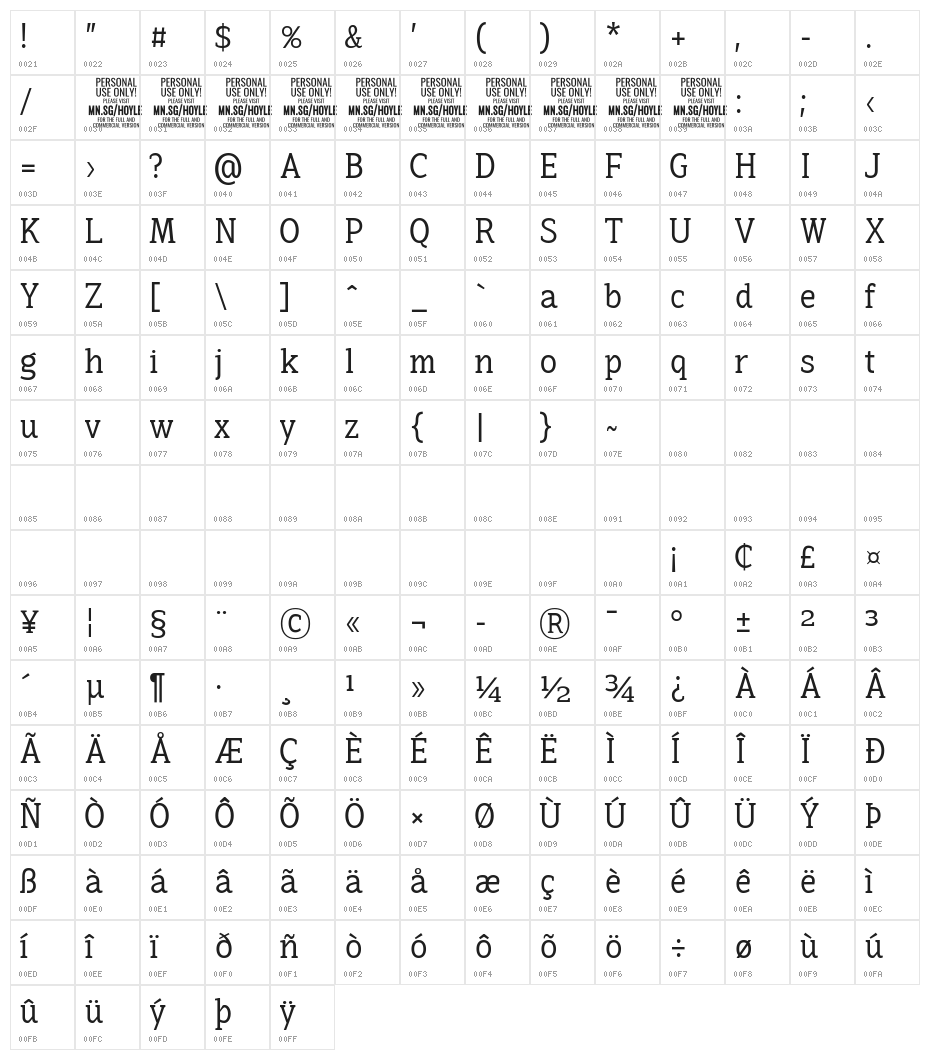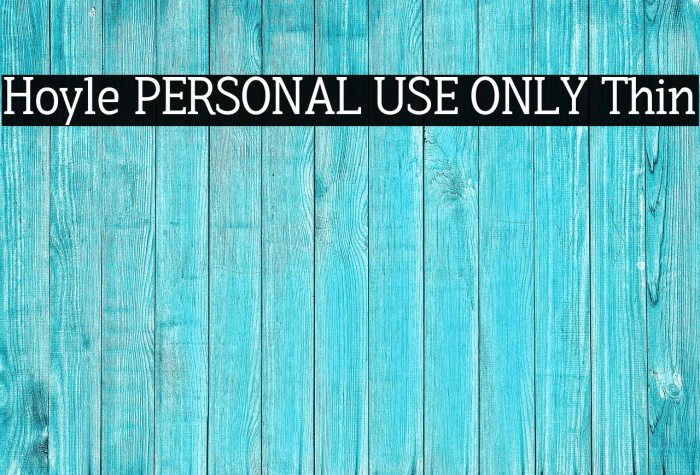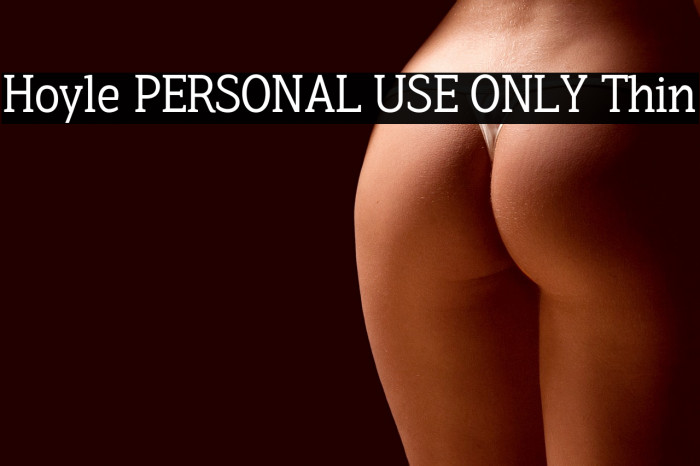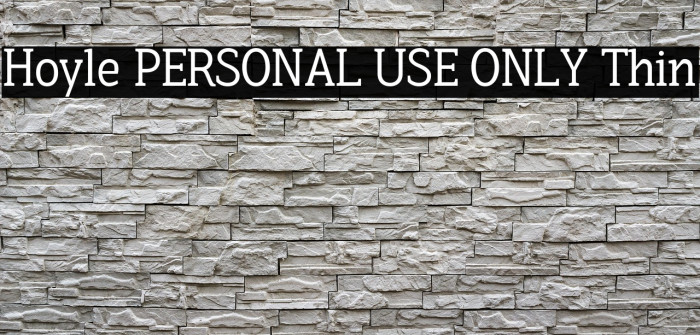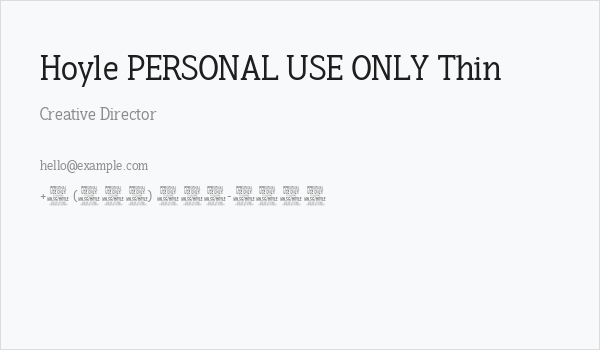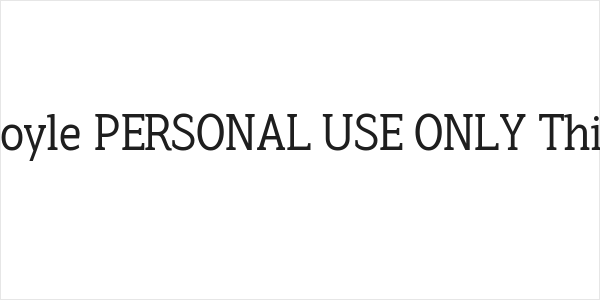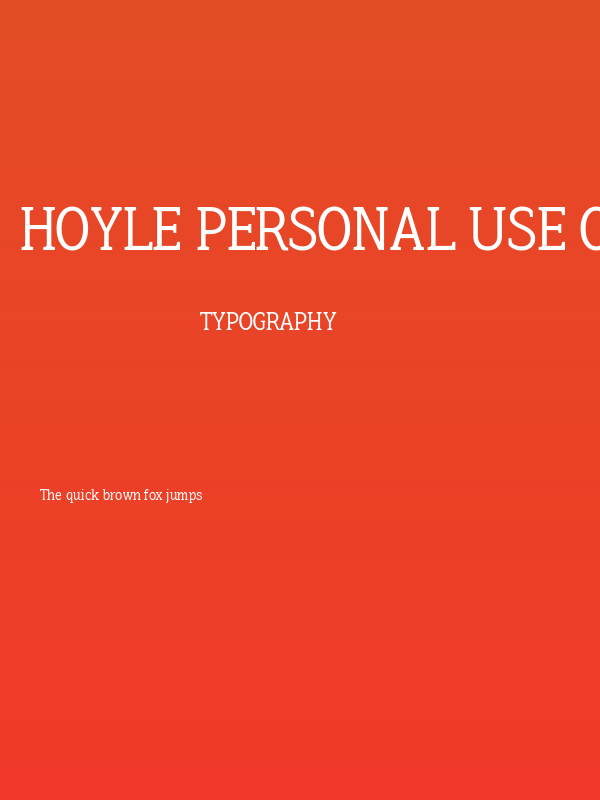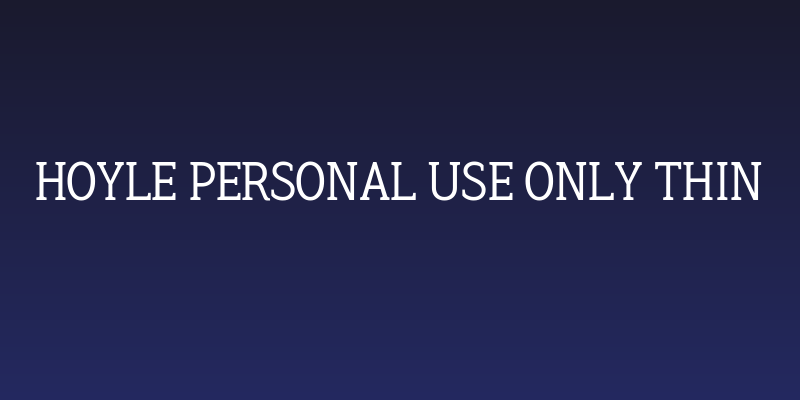
Hoyle PERSONAL USE ONLY Thin Font
Hoyle PERSONAL USE ONLY Thin Description
This font features a clean and elegant serif style with thin strokes, giving it a refined and sophisticated appearance. The uppercase letters are tall and commanding, while the lowercase letters maintain a balanced and harmonious look. The numerals are clear and legible, and the special characters are well-integrated into the overall design. The thin weight of the font adds a touch of delicacy, making it suitable for projects that require a subtle yet impactful typeface. The spacing between characters is normal, ensuring readability without compromising the aesthetic appeal.
| Proposed Projects | Ideal for editorial design, book covers, elegant invitations, and branding materials that require a touch of class. |